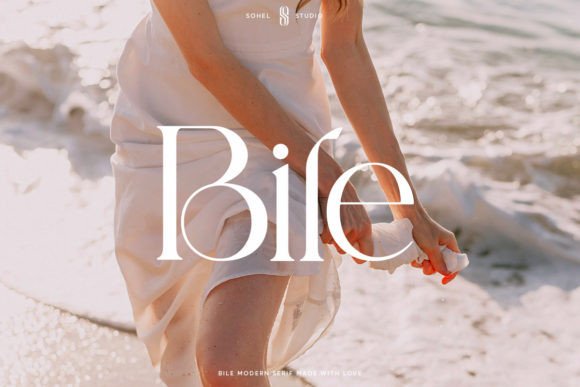
Introducing Bile Font - the elegant and sophisticated serif typeface that's perfect for your next luxury design project! Created by the talented team at Sohel Studio, Bile Font boasts unique characters and perfect kerning that is sure to elevate your designs.
If you're looking to add a touch of class to your work, Bile Font is the perfect choice. Its timeless style and luxurious feel make it ideal for a wide range of applications, from elegant logos and editorial designs to fashion and cosmetic brands. It's also perfect for modern advertising, invitation cards, art quotes, home decorations, book and cover titles, special events, and much more.
With Bile Font in your collection, you'll have the perfect tool to create stunning designs that will leave a lasting impression on your audience. Whether you're a professional designer or simply looking to add some elegance to your personal projects, Bile Font is the perfect choice.